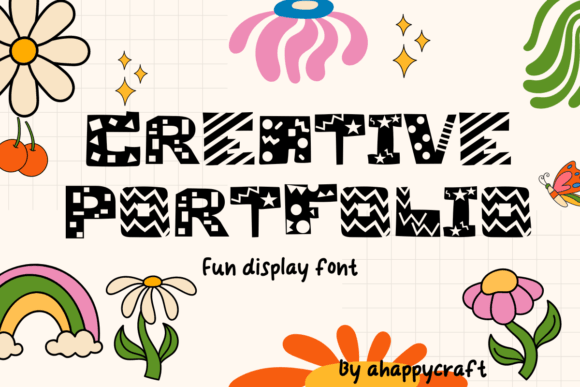
Unleashing Your Creativity with Funcube Font
Have you ever been in a moment where you’re brainstorming ideas for a project, and suddenly, the perfect font pops into your mind? For designers, this moment is like a spark that sets the entire creative process ablaze. And for those who are looking for a unique font that can bring their ideas to life, we’ve got something exciting to share with you.
Meet Funcube Font, a handmade font that’s as fun as it is cool. Designed specifically for young artists and designers, this font comes with all the alphabets in the English language, waiting to be used as art words or wall art. With each alphabet featuring a unique design made up of handmade lines and shapes, Funcube Font is the perfect addition to any creative project.
As a designer, you know the importance of finding the right font to convey your message. And with Funcube Font, you’ll have a valuable asset at your disposal. Its versatility and uniqueness make it a must-have for any project that requires a touch of creativity and personality.
Funcube Font Key Features
- Font Family: A custom-designed font created for the Funcube satellite project, providing a unique and recognizable aesthetic.
- Size: Designed to be legible at various sizes, with a recommended minimum size of 24 points for optimal readability.
- Resolution: Optimized for use at low resolutions, making it suitable for display on small screens and devices with limited display capabilities.
- Unique Characteristics: The Funcube Font features a distinctive, futuristic design with a focus on clarity and readability, making it well-suited for use in space-related and technical applications.
Designer Review: Funcube Font
I recently had the chance to work with the Funcube Font, and here are my honest thoughts on this digital typeface.
- Unique and modern aesthetic: Funcube Font brings a fresh and contemporary look to any project, making it perfect for designers looking to create a modern and sleek visual identity.
- High level of customization: With a wide range of font weights, styles, and sizes, Funcube Font offers endless possibilities for designers to experiment and create unique typography solutions.
- Easy to read: Despite its modern look, Funcube Font is surprisingly easy to read, making it suitable for both digital and print applications.
- Limited language support: Funcube Font may not be suitable for projects requiring support for multiple languages, as it may not include the necessary character sets.
- Not ideal for body text: While Funcube Font is great for headlines and titles, it may not be the best choice for body text, as it can become overwhelming when used extensively.
Overall, I found Funcube Font to be a solid choice for designers looking to create modern and eye-catching typography solutions. While it has some limitations, its unique aesthetic and high level of customization make it a great addition to any designer’s toolkit.
Getting the Most Out of Funcube Font
Here are some tips for getting the most out of Funcube Font:
- Combine Funcube Font with other fonts to create a unique and modern look.
- Use Funcube Font for headings and titles to create a clear hierarchy of information.
Funcube Font is ideal for:
- Modern and minimalist designs.
- Digital products and online courses.
- Business and corporate branding.
Alternatives to Funcube Font for Designers
What is the recommended font size for using Funcube Font?
Funcube Font is designed to be highly legible at a wide range of font sizes. However, for optimal readability, we recommend using font sizes between 12 and 24 points. At smaller font sizes, the font may become less legible, while larger font sizes may make the text appear too large or overwhelming.